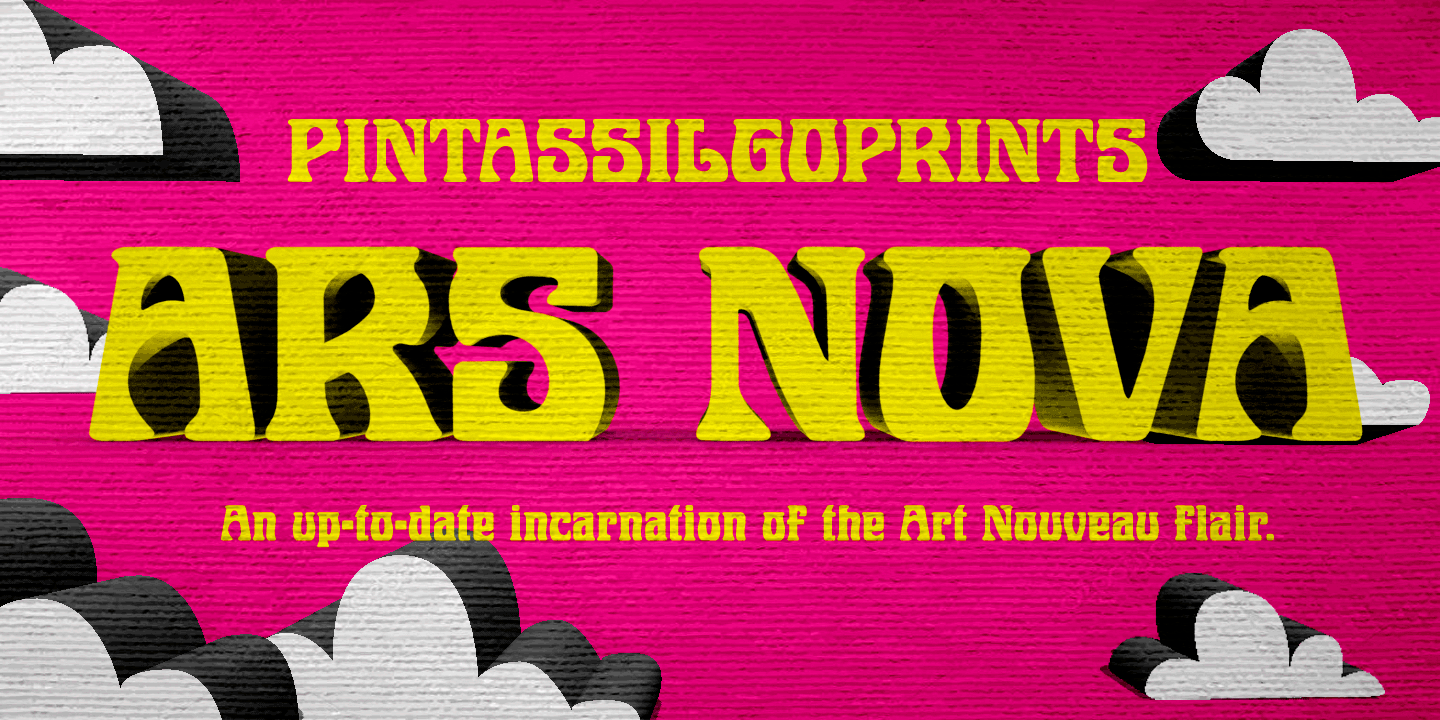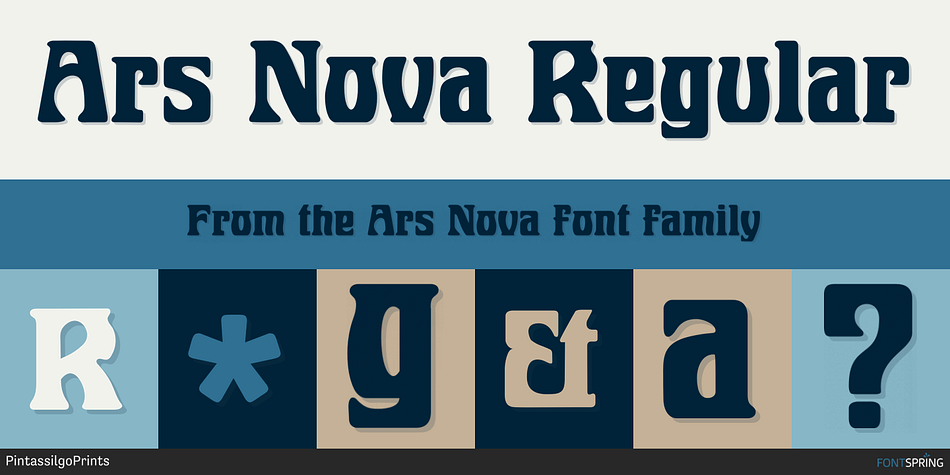
Ars Nova Regular
Designed by Ricardo Marcin and Erica Jung, Ars Nova is an art nouveau and retro font published by PintassilgoPrints.
Ars Nova is an up-to-date incarnation of the Art Nouveau flair.
Suited for striking typographic effects.
Suited for some nostalgic pleasure.
Specially suited for creative minds.